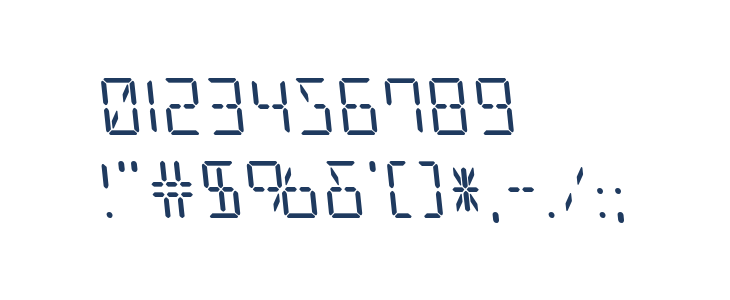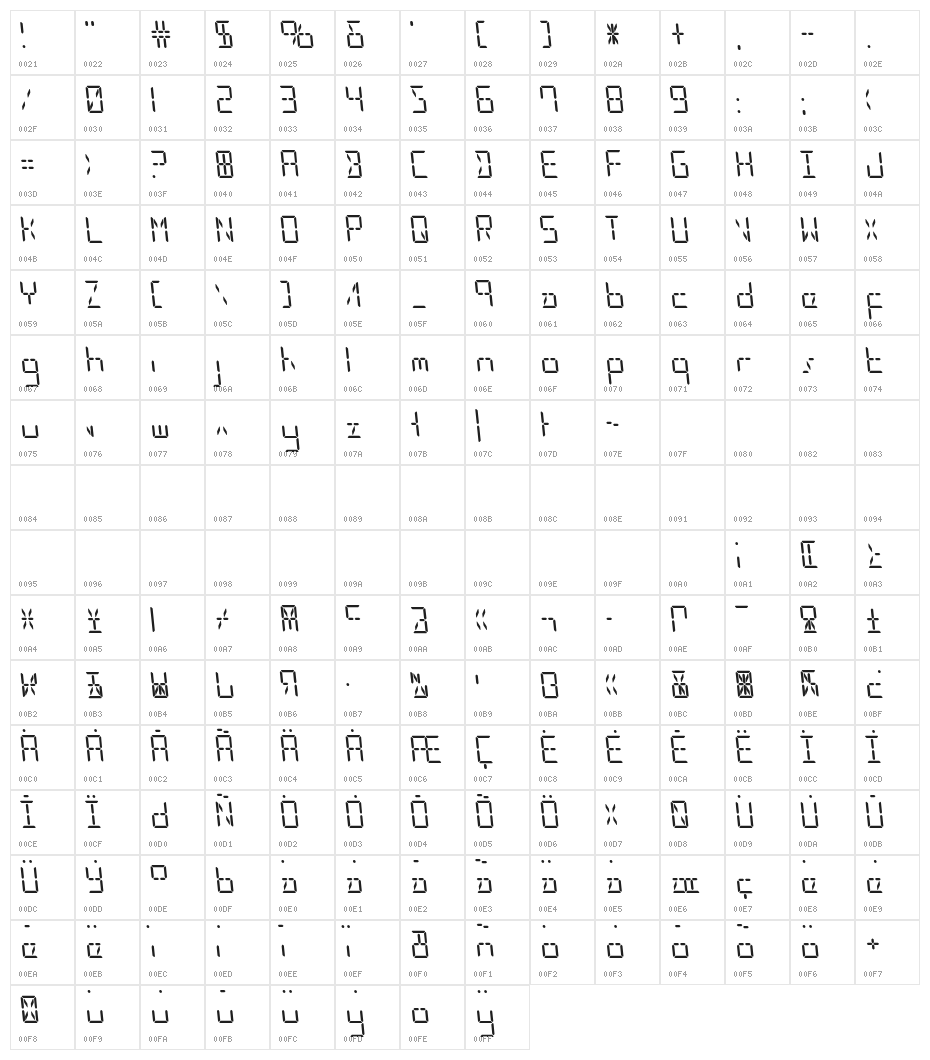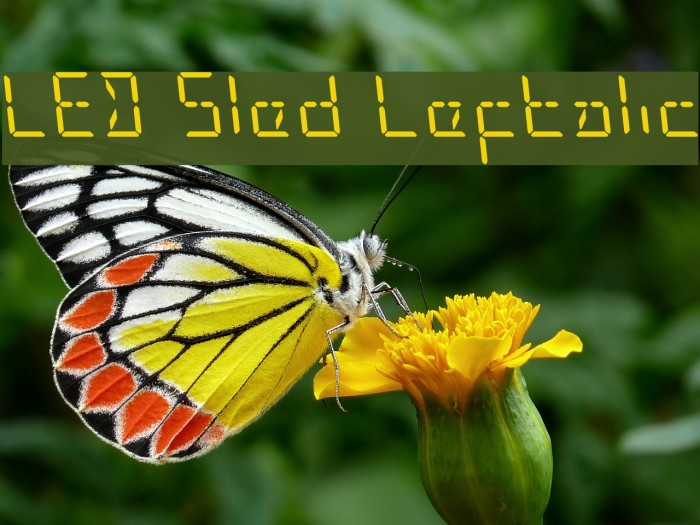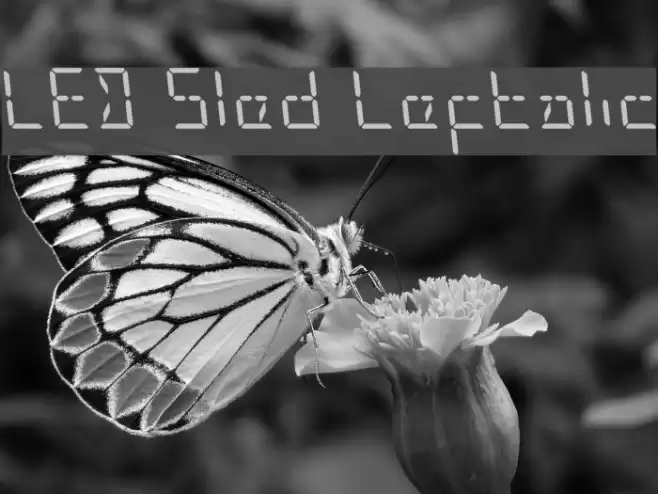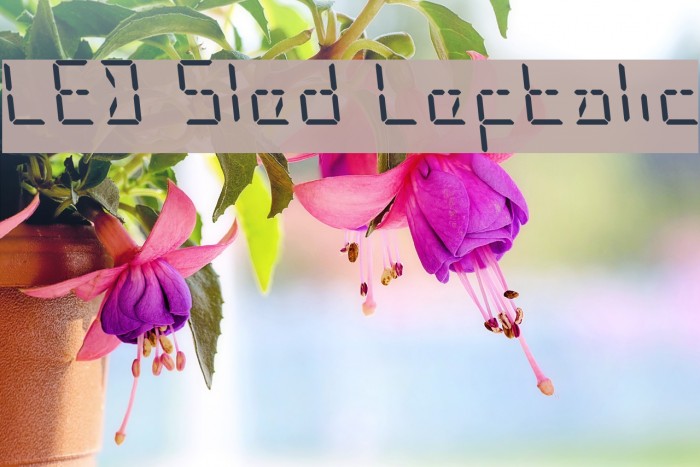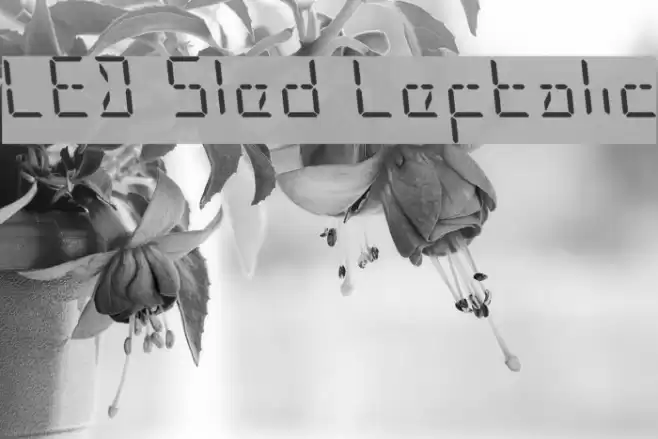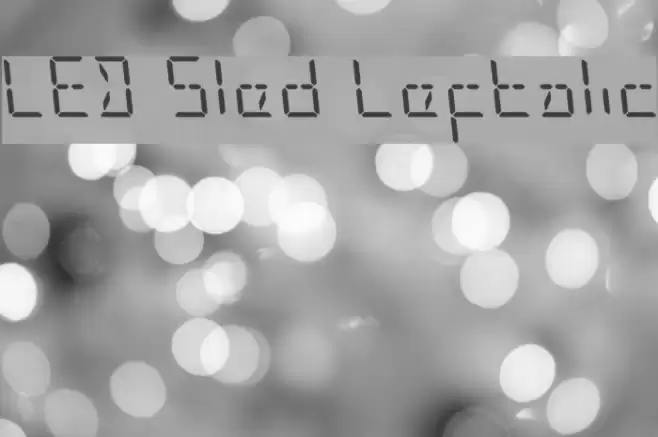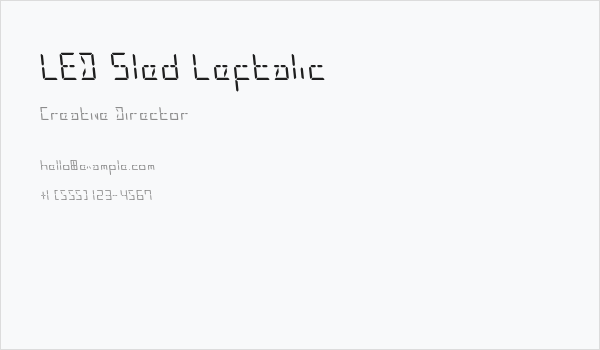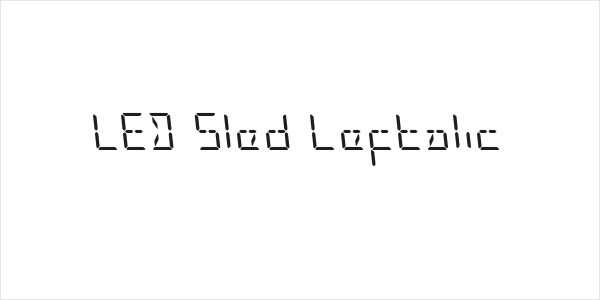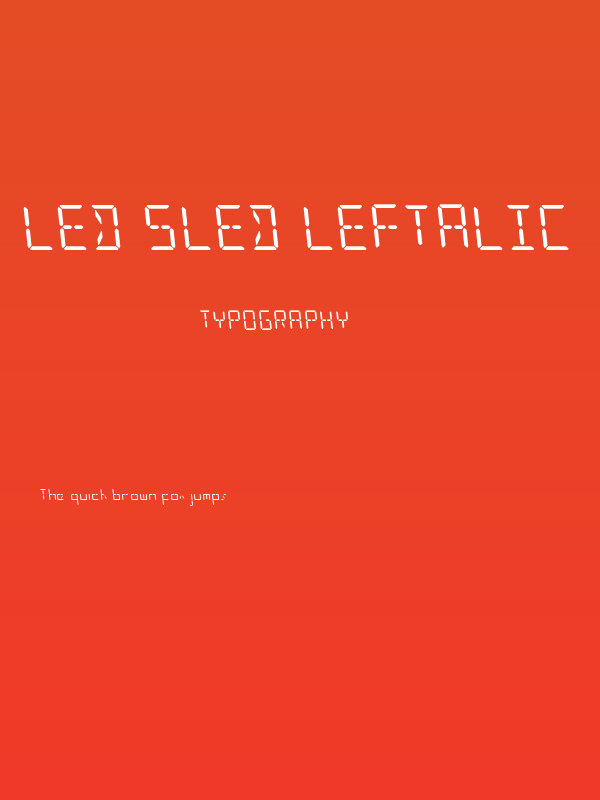
LED Sled Leftalic Font
LED Sled Leftalic Description
This font features a modern, digital-inspired design reminiscent of LED displays. Each character is constructed with a series of angular, segmented lines that mimic the appearance of electronic readouts. The style is consistent across uppercase, lowercase, numerals, and special characters, providing a cohesive look. The font's geometric structure and uniform line thickness contribute to its futuristic and technical aesthetic. Its unique style is well-suited for projects that require a digital or high-tech feel, such as technology branding, digital interfaces, or sci-fi themed designs.
| Use Case | Logos, Headlines, Digital interfaces |
| Proposed Projects | Ideal for technology branding, digital interfaces, sci-fi themes, and electronic displays. |